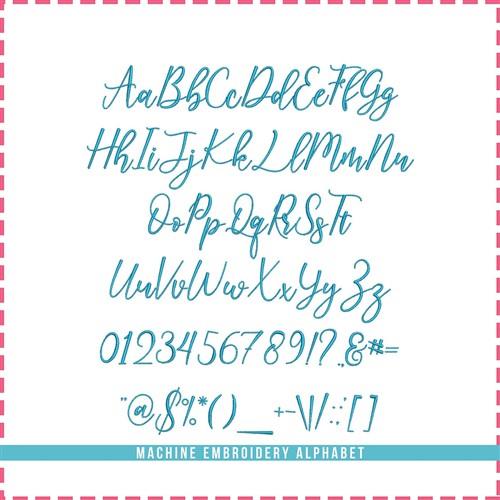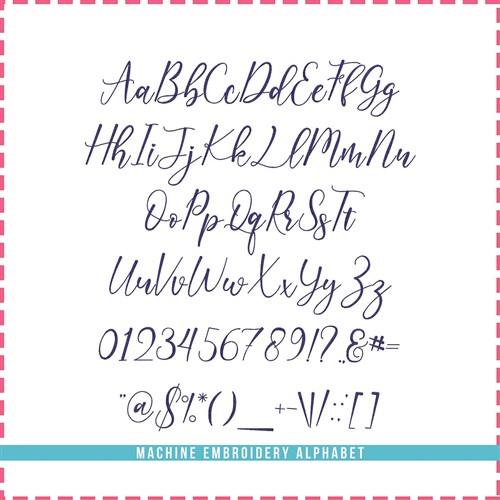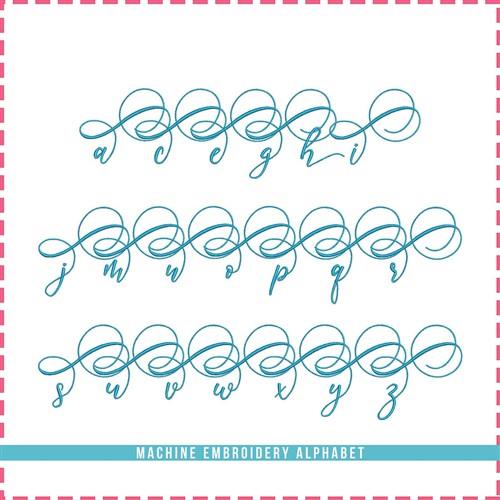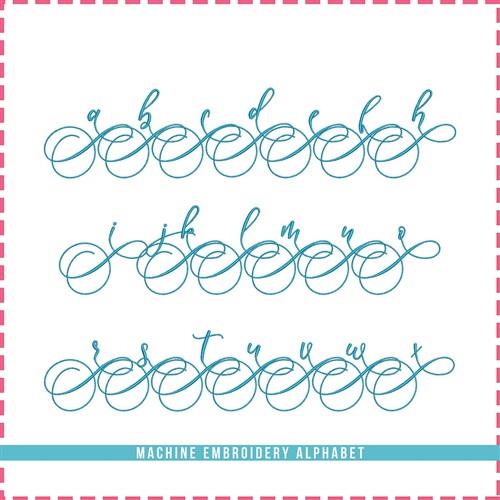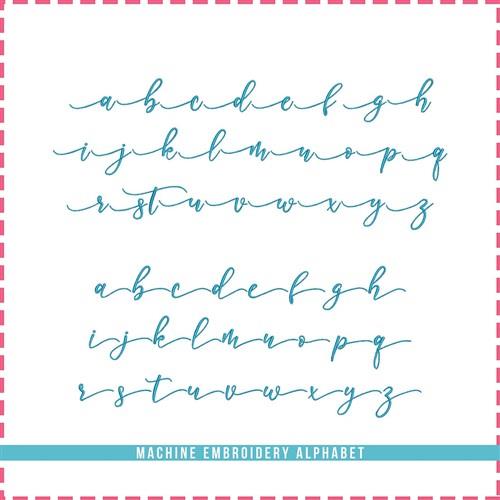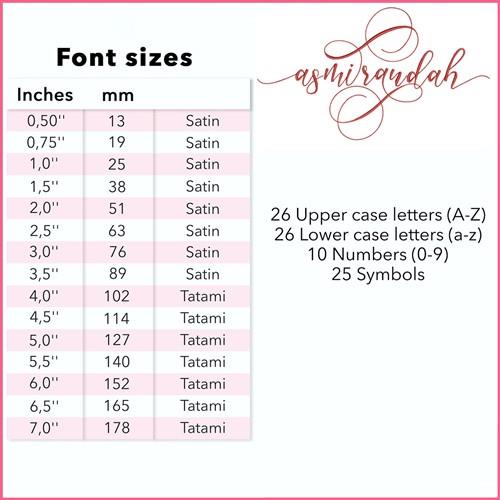
Artsy Knots is happy to present Asmirandah Font machine embroidery font which has Flowing script machine embroidery font with graceful curves, ideal for personalizing napkins or bags. Available in PES, DST, and 7 other formats for versatile use. included. If you would like to view more embroidery fonts and alphabets please search our embroidery fonts page.